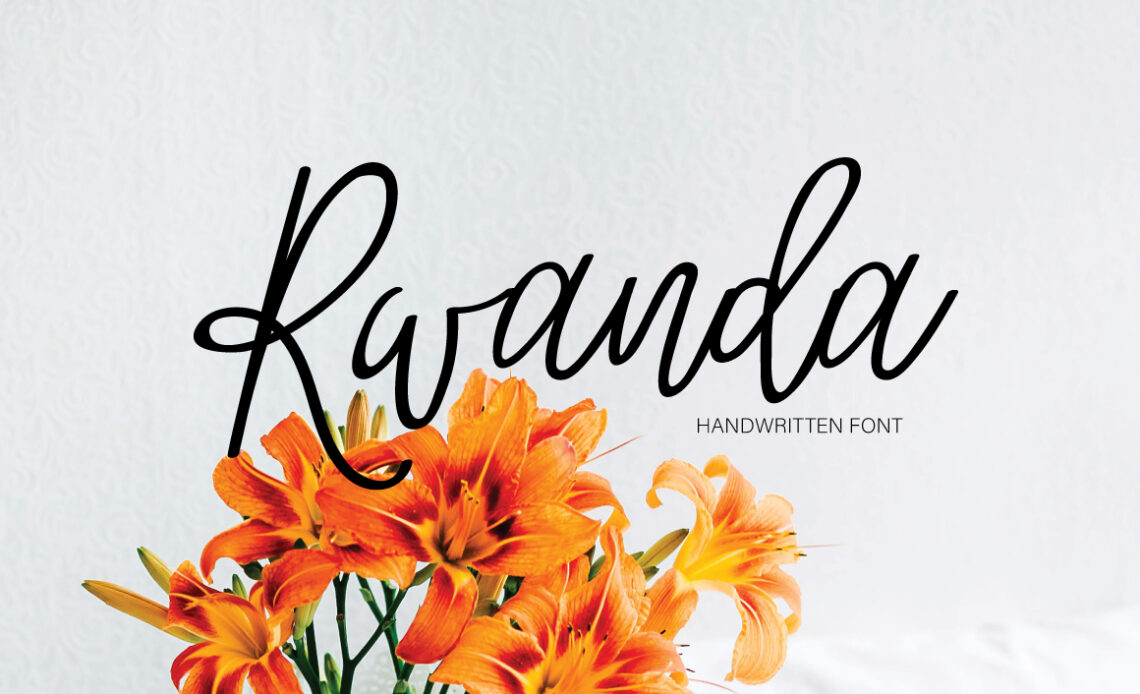
Introducing Rwanda Font: An Expedition Through the Realm of Enchanting Typography
In the vast expanse of digital artistry, where words dance with colors and shapes, there exists a treasure trove of typographical wonders just waiting to be unveiled. Among these hidden gems lies Rwanda Font, a script font that's an absolute delight for the eyes and a true blessing for designers seeking to make a mark.
Rwanda, a brainchild of the esteemed Studio_Art, is a handwritten symphony of flowing strokes and elegant curves, an embodiment of beauty and creativity. Its bubbly nature and variable design bring a touch of whimsy and playfulness to any project, ensuring that your designs stay on the cutting edge of style.
With Rwanda, you can embark on a typographical adventure, transforming ordinary text into captivating works of art. Its strokes, as delicate as a feather's caress, weave a tapestry of visual intrigue, adding depth and dimension to your creations.
Whether you're a graphic designer seeking to craft logos that exude personality, a web designer yearning for fonts that dance off the screen, or a content creator desiring text that commands attention, Rwanda is your perfect companion. It's a versatile wonder that seamlessly adapts to diverse design landscapes, bringing a touch of elegance and sophistication to every project.
So, why settle for ordinary fonts when you can immerse yourself in the extraordinary? Embrace the allure of Rwanda, a script font that's bound to leave an indelible mark on your designs. Its captivating curves, playful spirit, and boundless versatility will ignite your creativity and transport your projects to new heights of visual splendor.